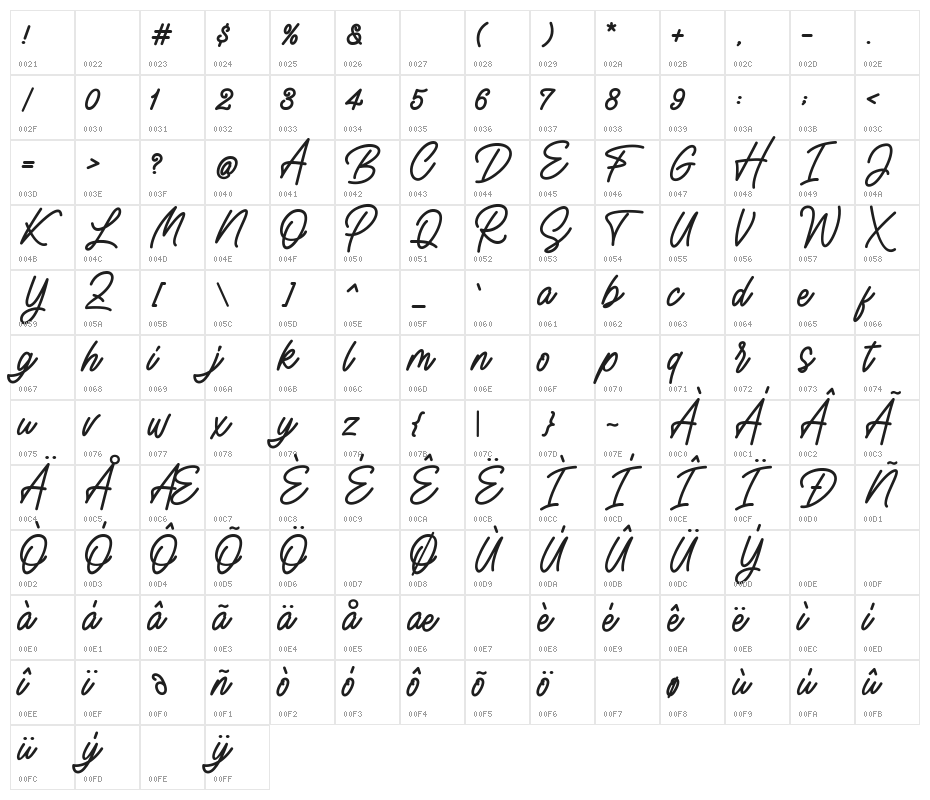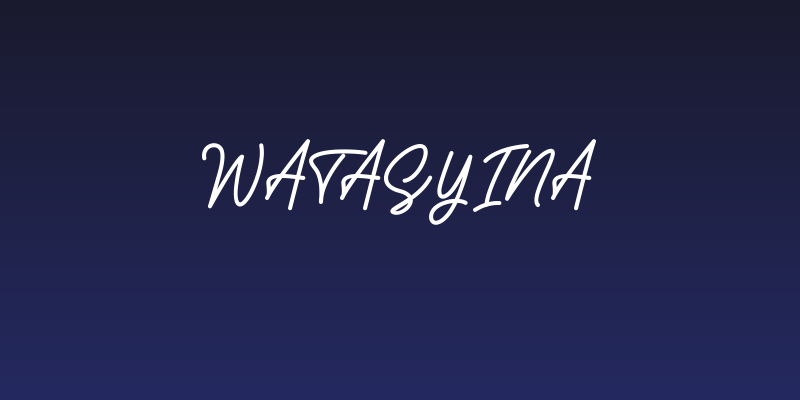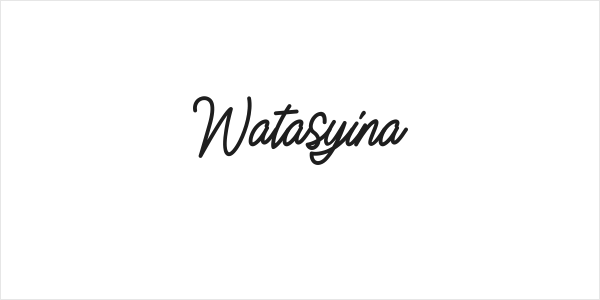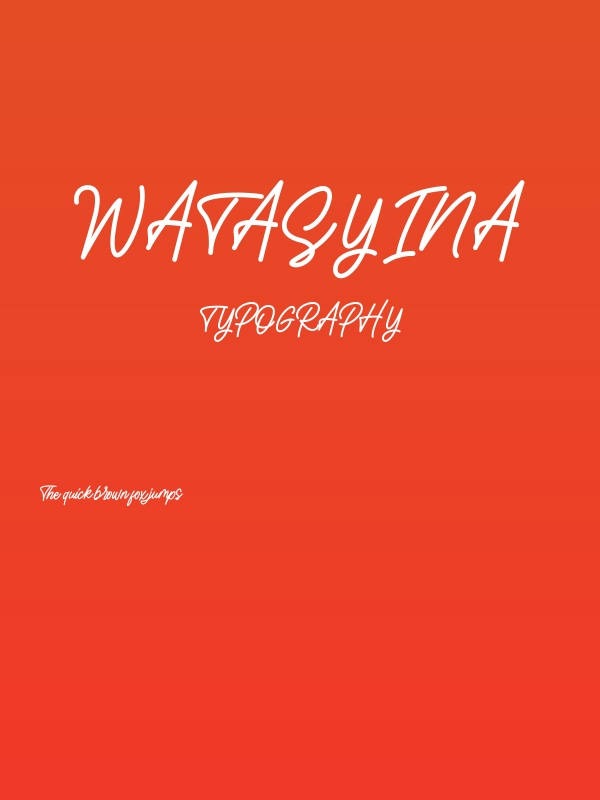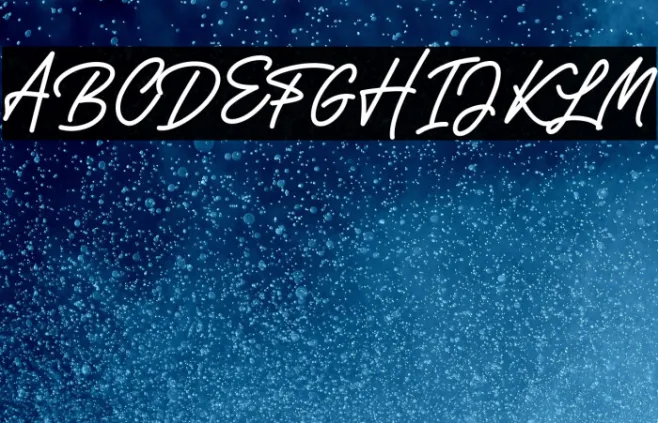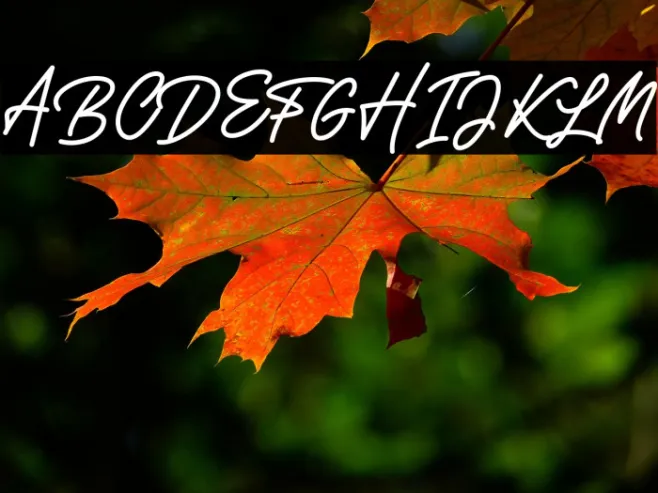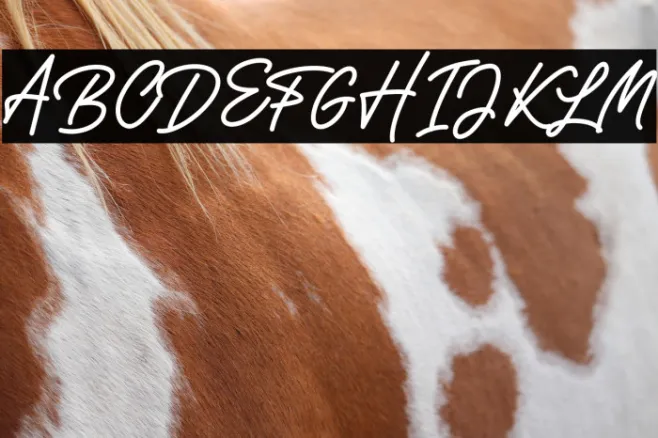
Watasyina Font
Watasyina Description
This font features a flowing, cursive style that mimics natural handwriting. The letters are connected, giving it a smooth and elegant appearance. The uppercase letters are slightly larger and more pronounced, while the lowercase letters maintain a consistent flow. Numbers and special characters are designed to match the overall script style, ensuring a cohesive look. The strokes are moderately thick, providing good readability while maintaining the font's decorative nature. This font is ideal for projects that require a personal touch or a sense of elegance.
| Proposed Projects | Wedding invitations, greeting cards, personal branding, and elegant signage. |